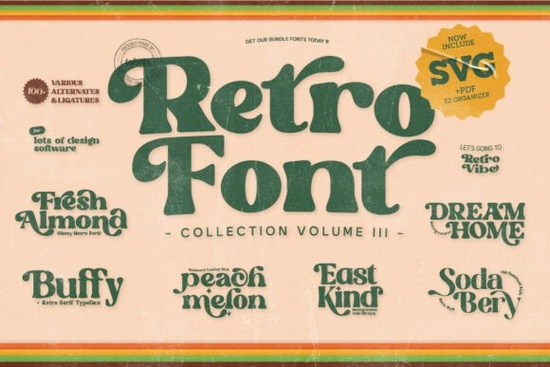
Looking for a font collection that channels the bold, colorful spirit of the 60s and 70s? The Retro Groovy Bundle Font on Creative Fabrica brings together seven handcrafted display typefaces built for designers who love that vintage, funky aesthetic. Whether you're working on a T-shirt design, a brand logo, or a social media post, this bundle gives you a solid range of retro display fonts without hunting for them one by one.
What Fonts Are Included in the Retro Groovy Bundle?
This bundle packs seven distinct typefaces, each with its own personality. Here's a quick look at what you get:
- Fresh Almond A playful, rounded font with soft curves that works well for casual branding and packaging.
- Peach Melon A warm, bubbly typeface with a fruit-inspired charm, great for food labels and summer-themed projects.
- Dream Home A retro display font with a cozy, nostalgic feel, ideal for homeware branding or event invitations.
- Buffy A bold, eye-catching font with chunky letterforms that stand out on posters and album covers.
- Sodabery A vintage-inspired font with a soda-shop vibe, perfect for retro product labels and signage.
- East Kind A groovy typeface with handcrafted curves that adds personality to any headline or logo.
On top of the fonts, the bundle may also include bonus retro illustrations and textures, which can save you time when building out a full vintage design concept.
What Can You Actually Use These Retro Fonts For?
Retro display fonts like these are surprisingly versatile. Here are some real-world uses that designers and small business owners turn to them for:
- T-shirt and apparel designs Bold retro lettering sells well in the print-on-demand space, especially for vintage-style graphic tees.
- Logos and branding If your brand leans into a 70s-inspired or nostalgic look, these fonts set the right tone from the start.
- Event flyers and posters A groovy font grabs attention fast, making it a solid choice for music events, markets, and themed parties.
- Packaging and product labels Especially for food, beverages, and handmade goods where a vintage feel adds perceived value.
- Social media content Instagram posts, story templates, and Pinterest graphics all benefit from distinctive, readable display fonts.
- Album covers and music artwork The retro aesthetic pairs naturally with vinyl-inspired and indie music projects.
The value here is in the variety. Getting seven distinct retro display fonts in one purchase means you're not locked into a single style. You can mix and match typefaces across a branding project, use one font for headlines and another for accents, or keep a few in your library for future client work.
Who Is This Font Bundle Best For?
This bundle fits well if you are:
- A print-on-demand seller looking for fresh vintage-style typography for new designs
- A graphic designer building a retro brand identity for a client
- A small business owner creating packaging, labels, or signage with a groovy aesthetic
- A crafter or hobbyist who wants bold, fun fonts for personal projects like invitations, scrapbooks, or wall art
- A social media manager who needs standout typography for posts and templates